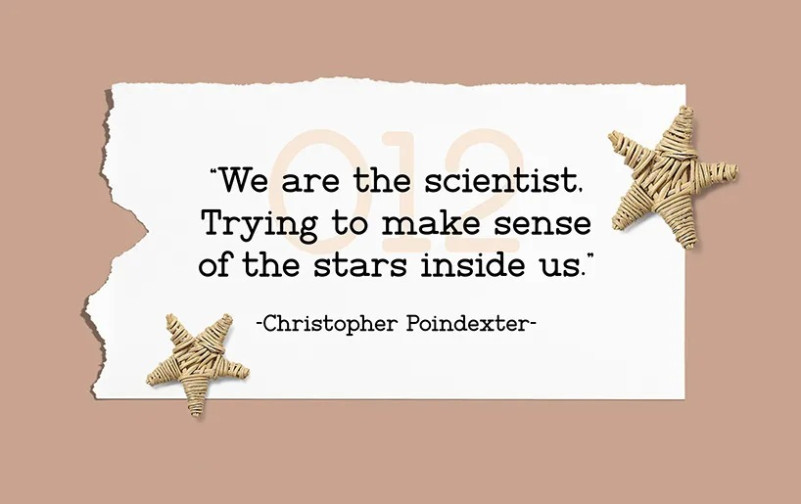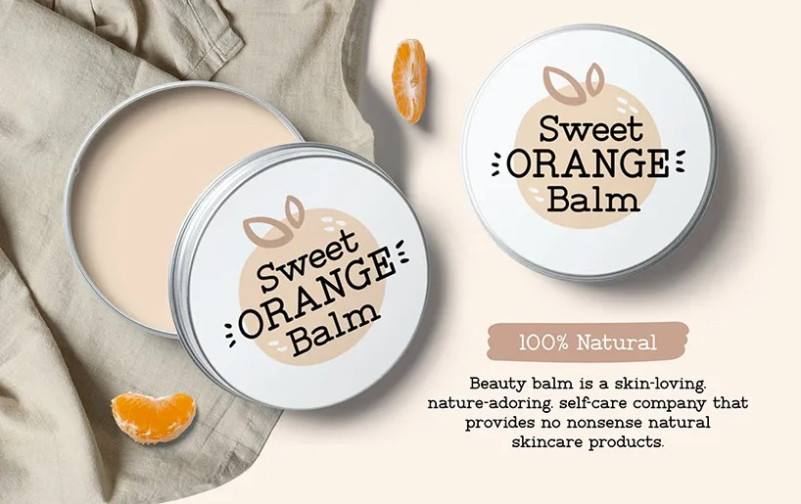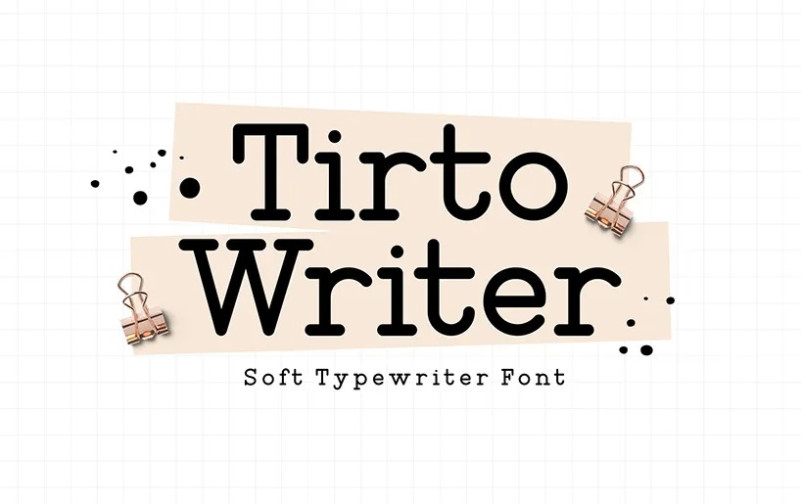
Tirto Writer Font
Ever need to use a text with an old font? Do you want to use a font to make it look like an old document? Or do you want to use a font that could create a text that contains documentary themes inside it? Tirto Writer is the perfect font for you.
Tirto writer Vintage Font is a font that inspires by an old typewriter. Like any other licensed font out there, this font already had one package inside it; you will have the font, Uppercase letters, lowercase letters, Punctuations, and numbers.
This Old Typewriter Font is a Bread and Butter For Doing Retro Designs. No matter how far ahead in the future, we also need to revisit history and remember what happened inside that history.
Same as font, if you are working on a retro movie, vintage subtitles, or even trying to reenact the original old typewriter font. Tirto Writer is a perfect replica or similar to the old typewriter font. This font fits well with any products that require a retro/vintage touch.
The Old Typewriter Font Has A High Value And Last Long Despite How Old The Font Look. Some designers never look over this font because of its look.
The font has a high value due to being one of the predecessors of the typewriter font that already appeared a long time ago. Few designers try to accomplish retro/vintage old document that looks destroyed, and those designers could use Tirto Writer with some Photoshop actions to achieve those results.